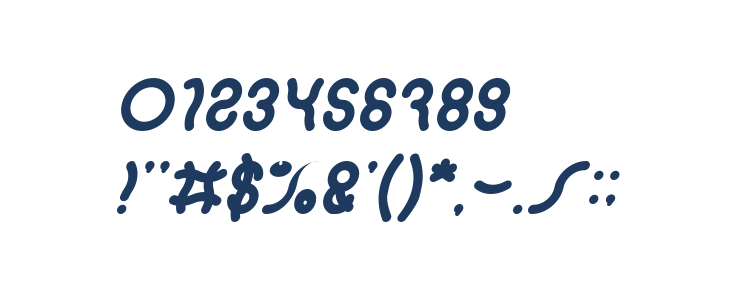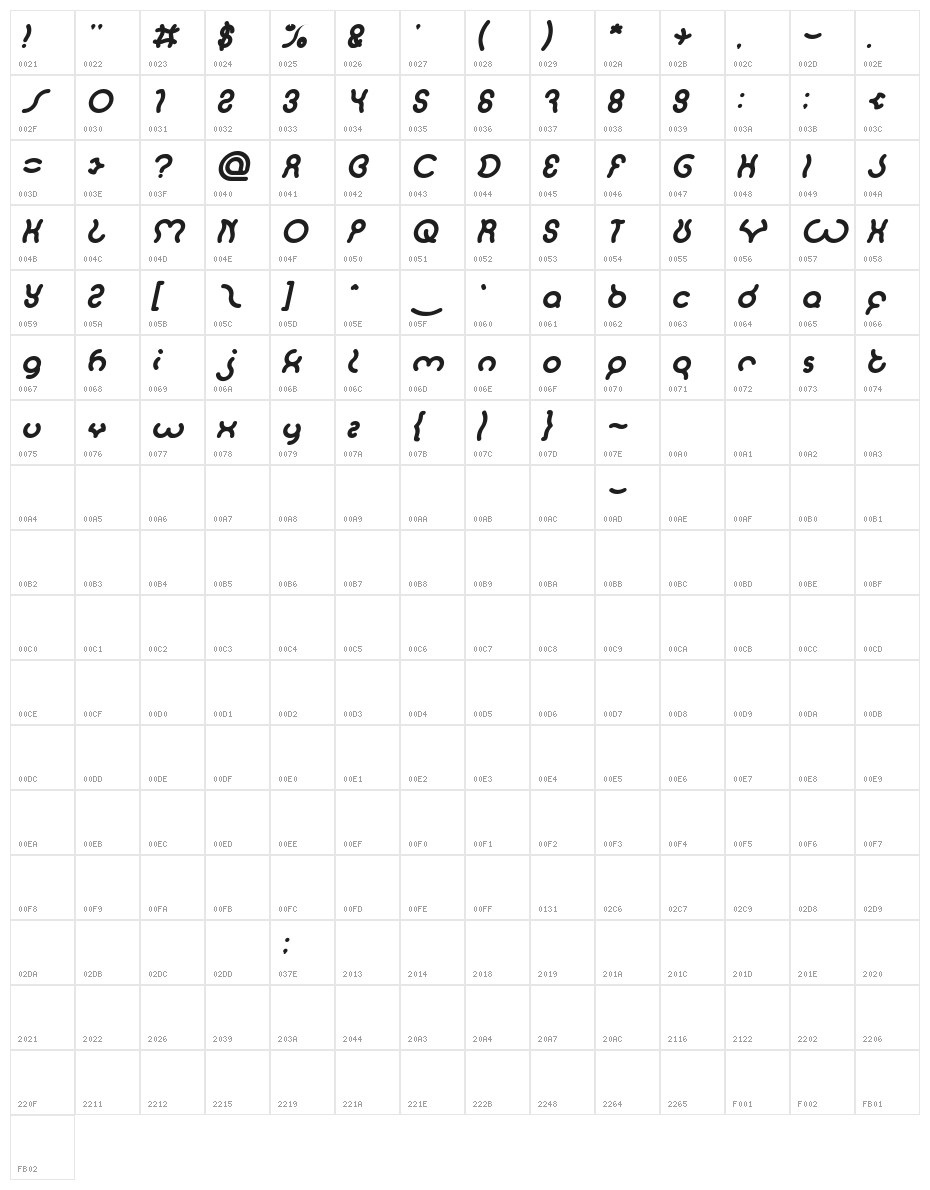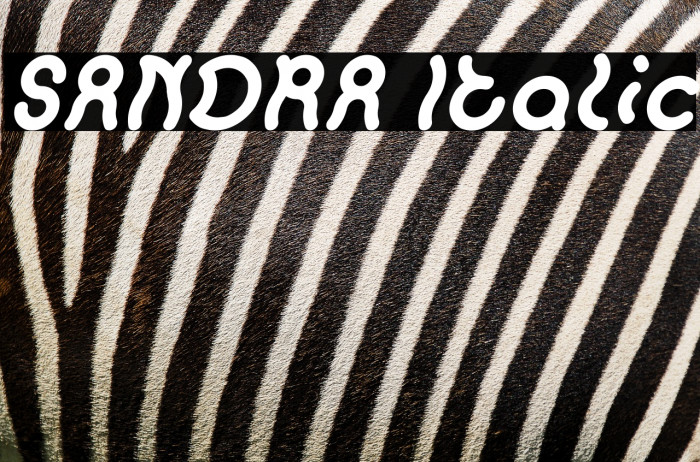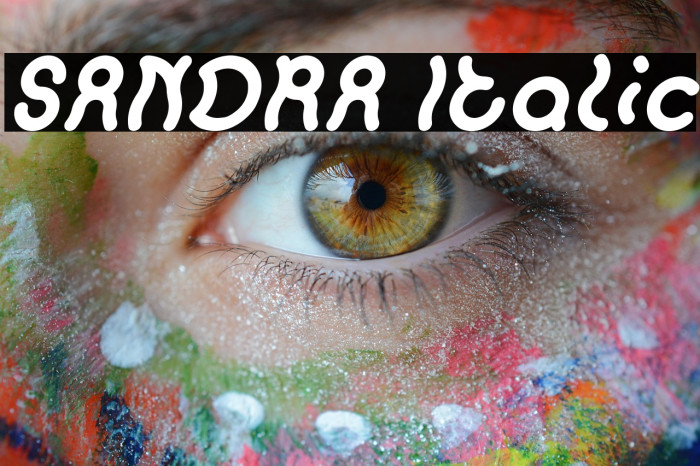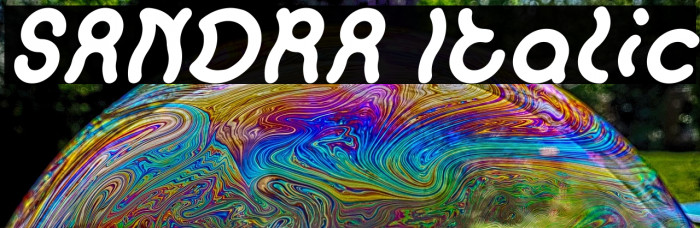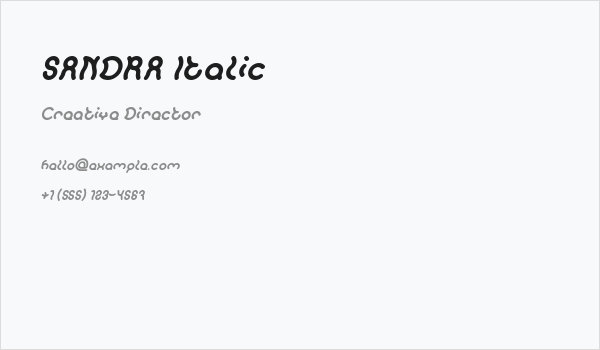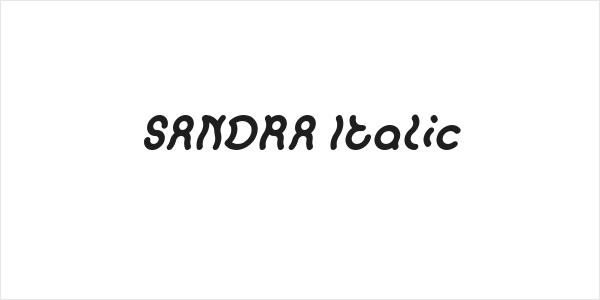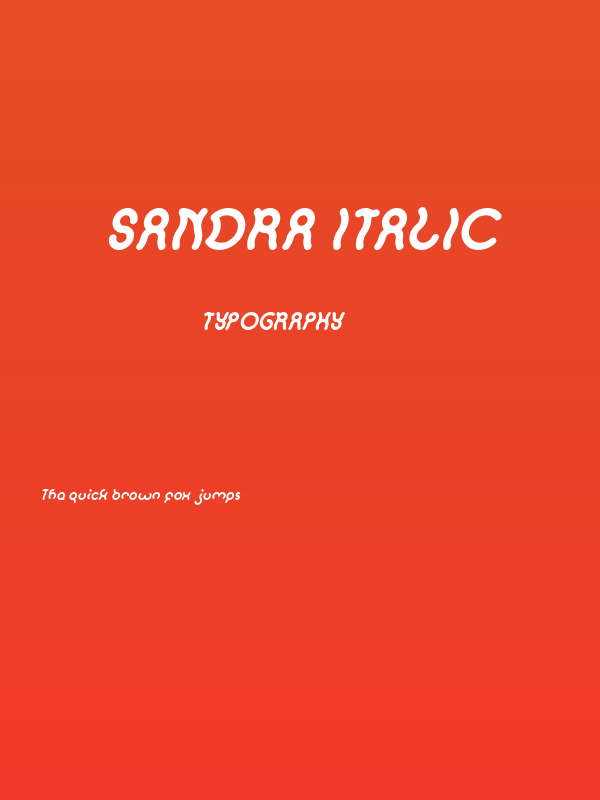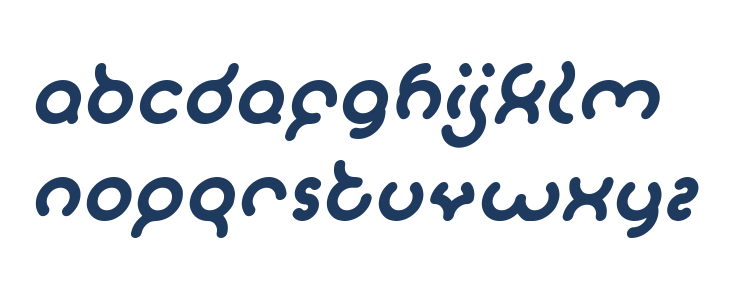
SANDRA Italic Font
SANDRA Italic Description
This font features a playful and bold design with a unique, bubbly appearance. The characters are rounded and have a consistent thickness, creating a cohesive and friendly look. The letters are slightly italicized, adding a sense of movement and dynamism. The font maintains a uniform stroke width throughout, contributing to its bold and impactful presence. The numbers and special characters are crafted with the same playful style, ensuring consistency across all elements. This font is ideal for projects that require a fun and approachable aesthetic.
| Proposed Projects | Ideal for children's books, playful branding, posters, and creative invitations. |